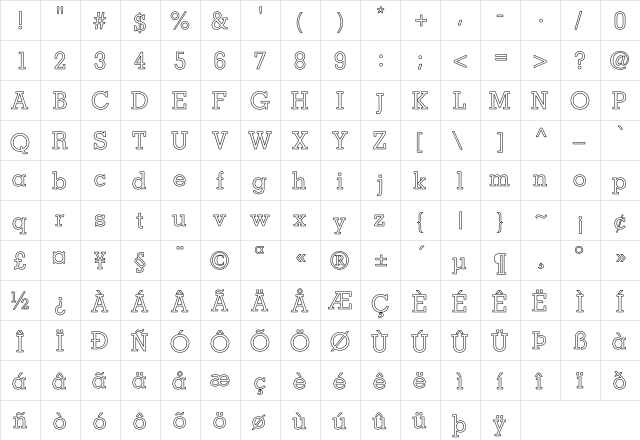
Memphis-Medium Hollow Regular
Design Context for Memphis-Medium Hollow Typeface
Memphis-Medium Hollow is a composed and adaptable typeface that performs quietly and consistently across a wide range of design contexts.